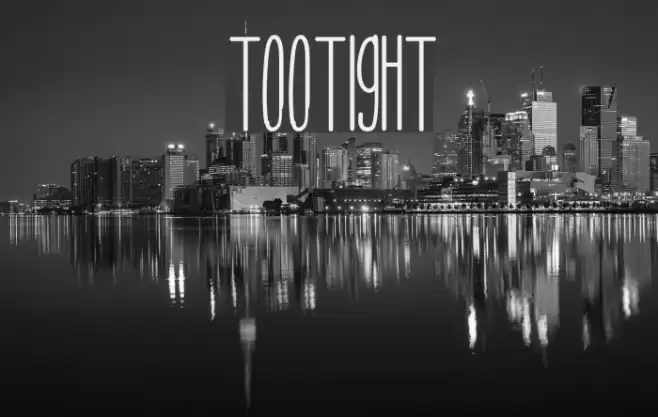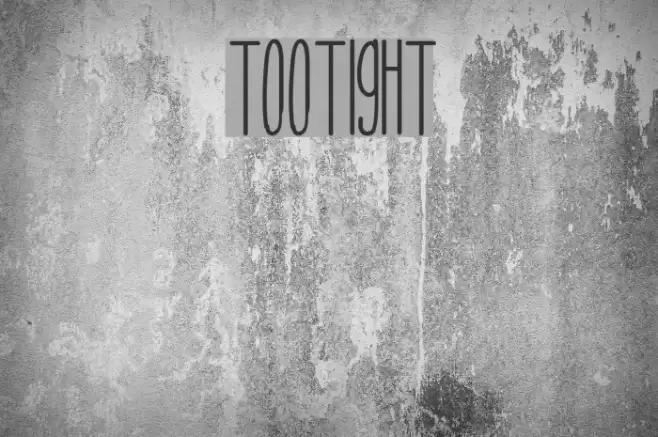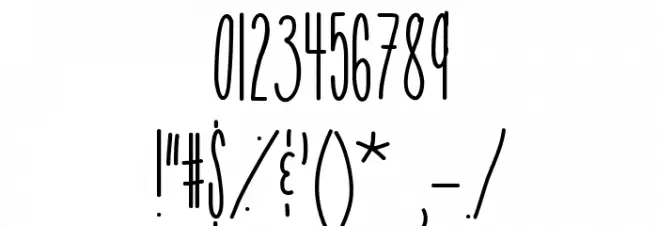
TooTight Font
TooTight Description
This font features tall, narrow characters with a distinctively elongated form, giving it a sleek and modern appearance. The uppercase and lowercase letters maintain a consistent height, contributing to a uniform look across the text. The numerals and special characters follow the same design principles, ensuring cohesion throughout. The thin strokes and minimal contrast between thick and thin lines add to its elegant and contemporary style. The font's tight character spacing enhances its compact and streamlined aesthetic, making it suitable for projects that require a modern and stylish touch.
A tall, narrow font with sleek, elongated characters and tight spacing from Uncategorized fonts.
- Proposed Projects: Ideal for modern branding, fashion magazines, minimalist posters, and sleek product packaging.
- Character Spacing: Tight